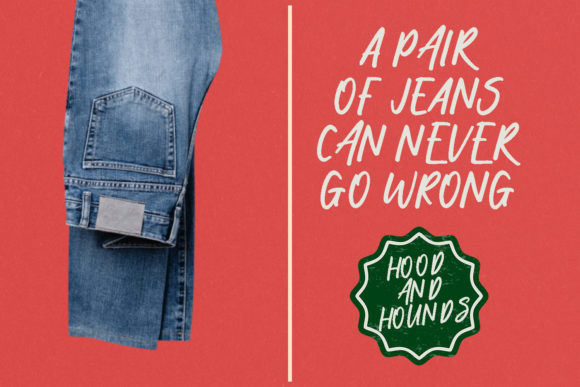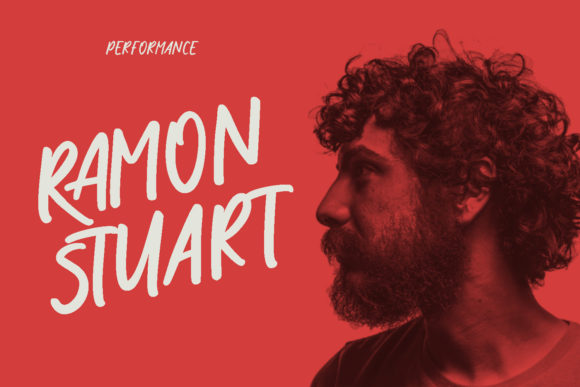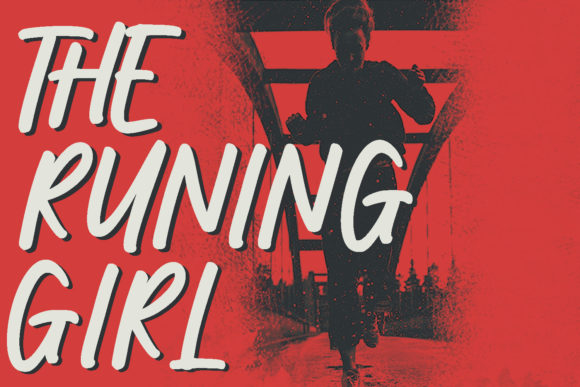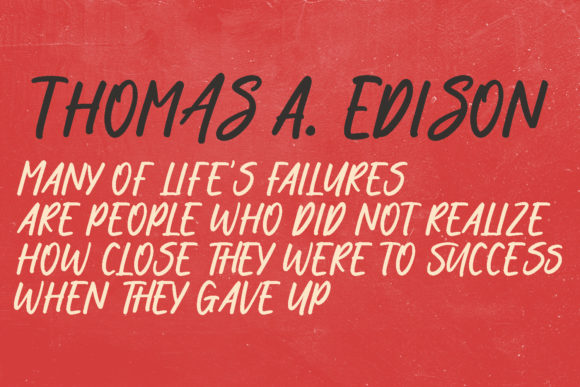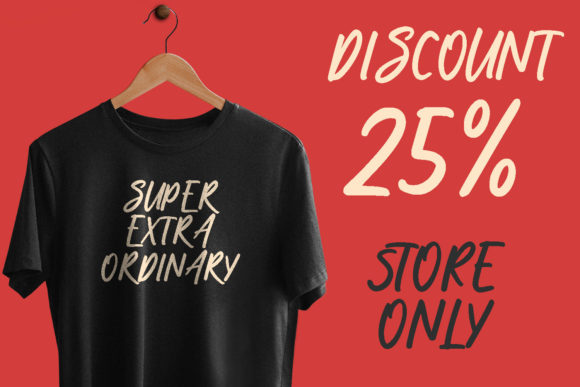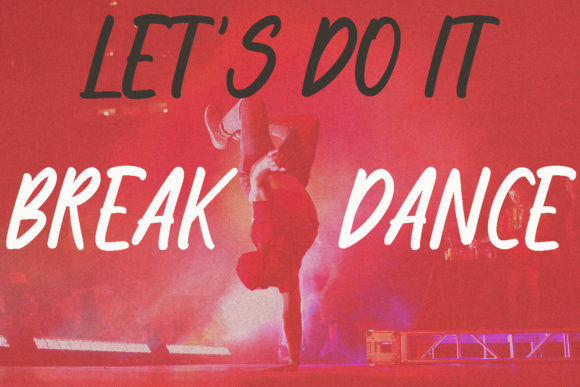
Introduction to Heinbergs Font
Heinbergs is a cool and casual display font.
It is perfect for product packaging, branding project, magazine covers, social media, wedding, or just used to express words above the background .
Why Choose Heinbergs Font?
Heinbergs Font offers exceptional quality and versatility, making it a valuable addition to your design toolkit. Whether you’re creating for personal projects or commercial use, Heinbergs Font delivers professional results.